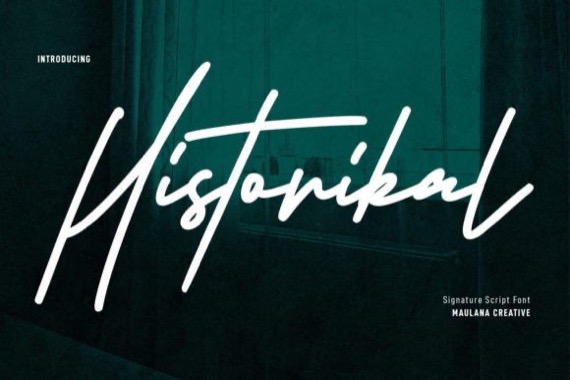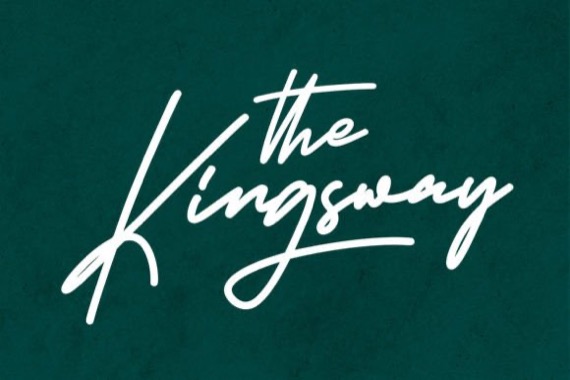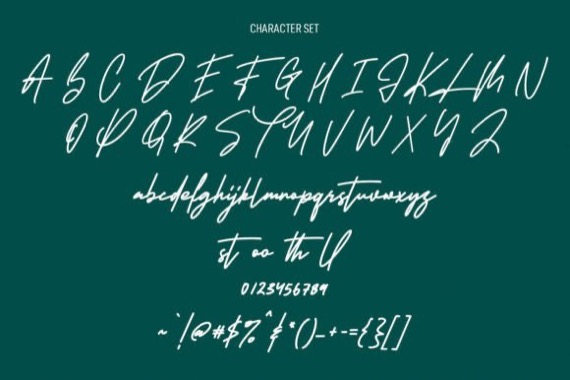
Historikal is a dazzling signature script font with a flowing cute handwritten style from Maulana Creative. This font is neatly crafted and highly detailed. Whatever the topic, this font will be a wonderful asset to your font library, as it has the potential to enhance any creation.
Historikal Signature Handwritten Font